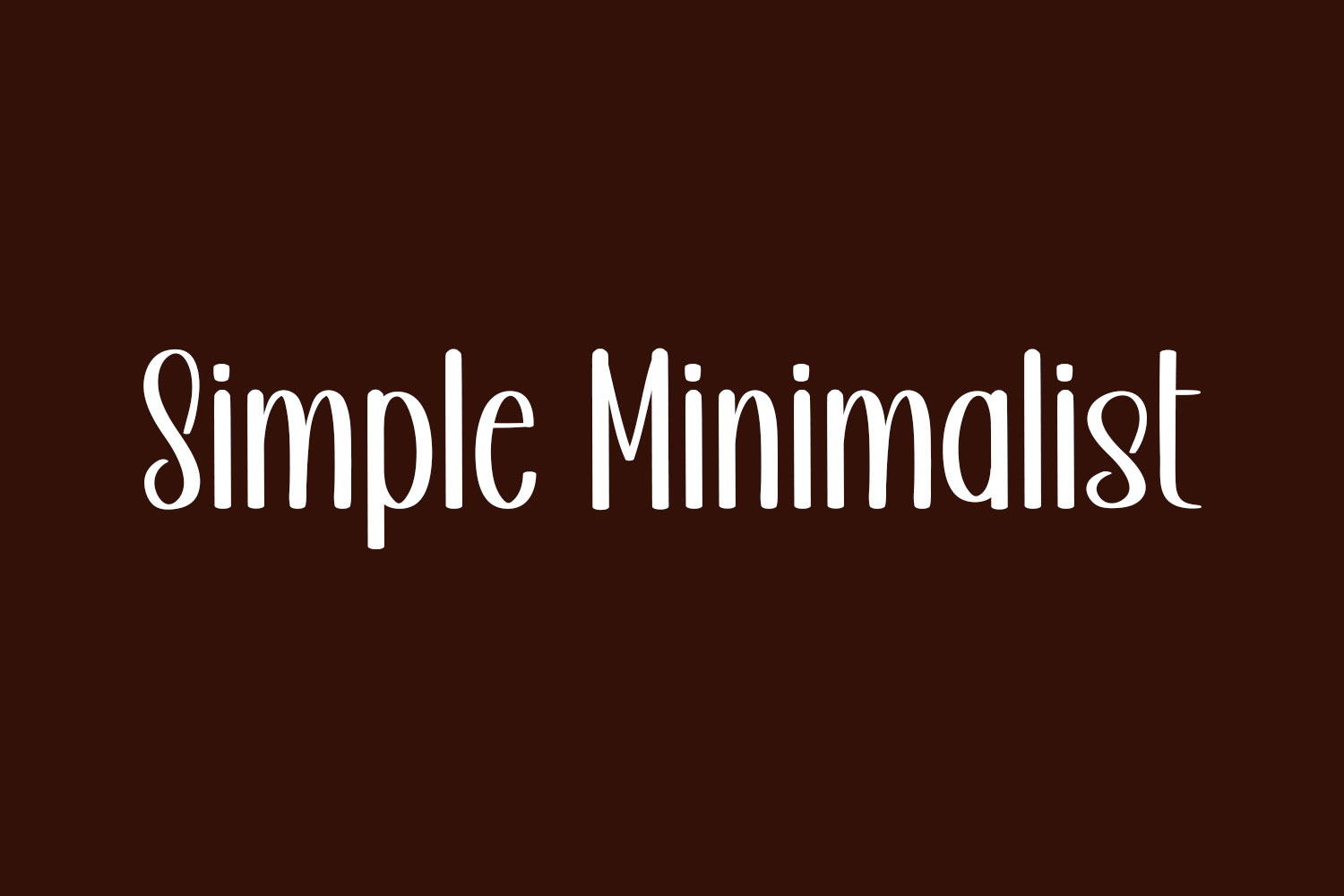
Simple Minimalist Free Font is an exquisite, elegant handwritten typeface with a smooth and appealing appearance. Employ it for showcasing on walls, crafting wedding invitations, creating logos for social media posts, designing advertisements, packaging products, enhancing product designs, crafting labels, perfecting photography, watermarking, creating invitations, customizing stationery, and enhancing any project that demands captivating typography. Simple Minimalist Free Font is free for personal use only. Please purchase the full version for commercial use.